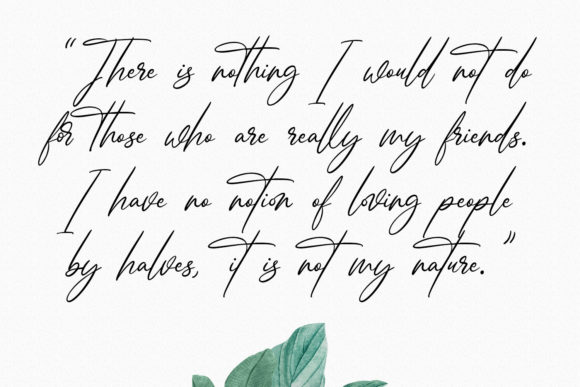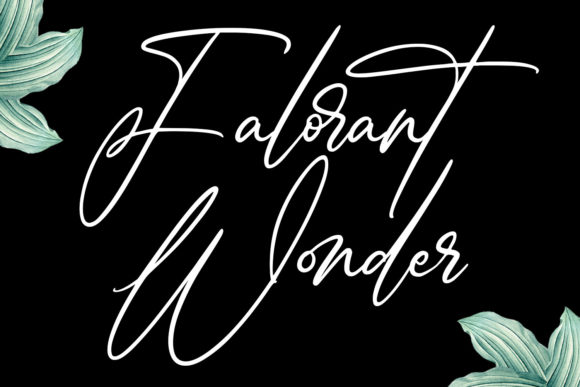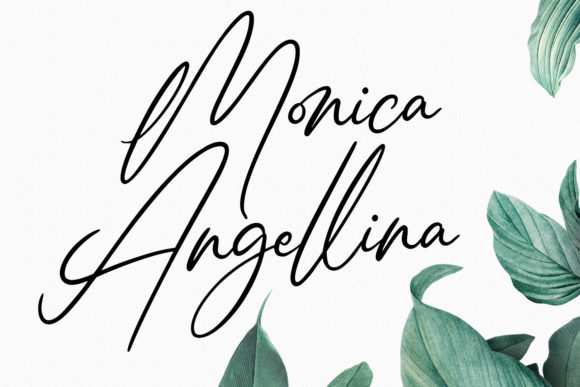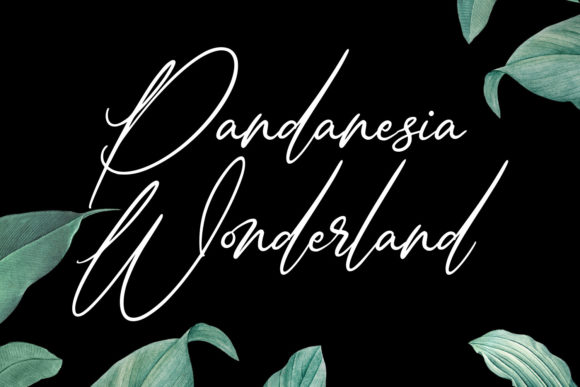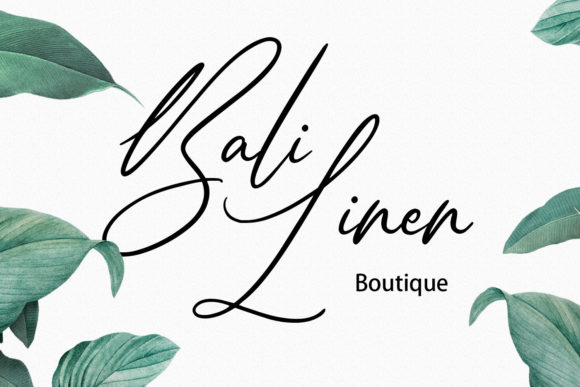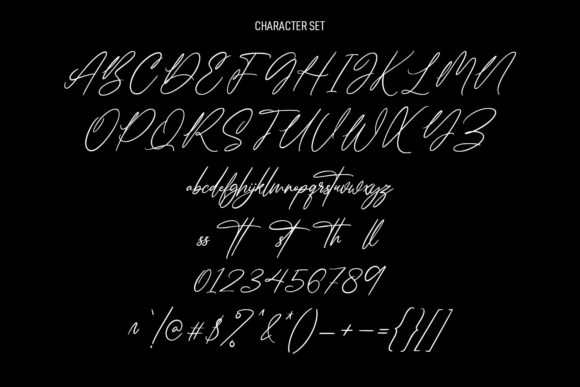
Introduction to Jonathan Billy Font
Jonathan Billy is an expressive signature script font.
It features thin contrast strokes, fun characters, with a bit of ligatures and alternates It is suitable for any branding project like logos, t-shirt printing, sport designs, and more.
Key Features of Jonathan Billy Font